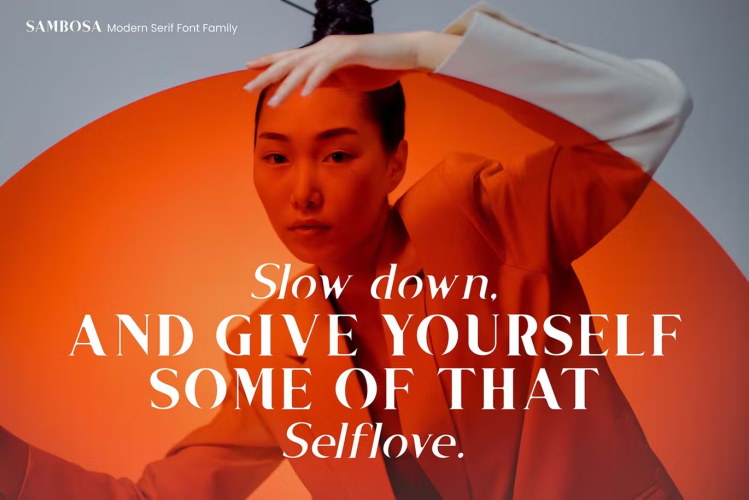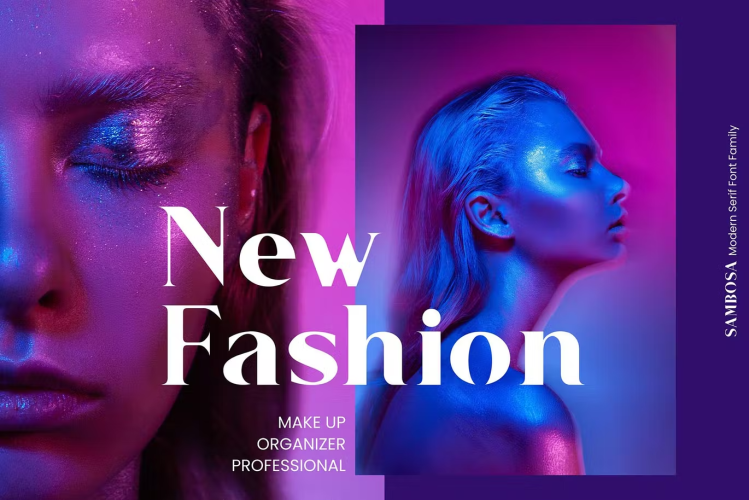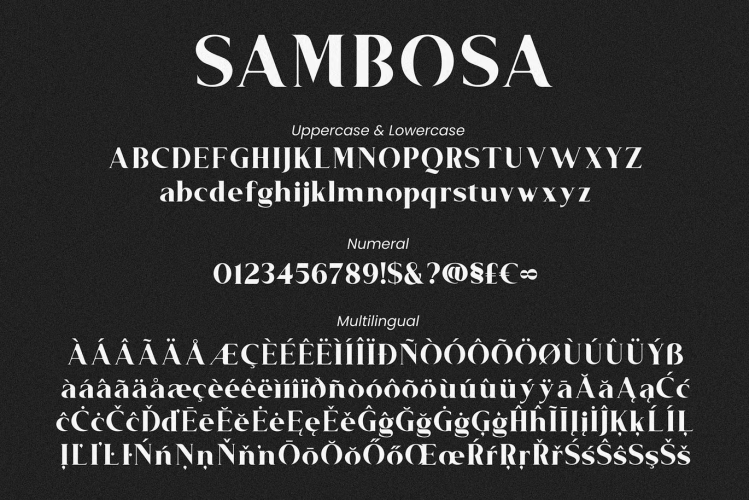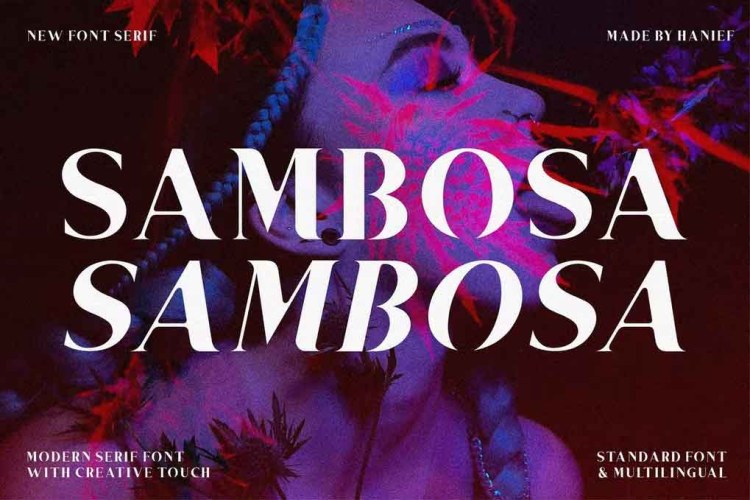
Sambosa Font
Sambosa – Modern Serif Font is a stylish font It has both modern look. Comes with Bold and Bold Italic, helps to create stunning logos, quotes, posts, blog posts. branding projects, magazine imagery, wedding invitations, and much more.
Where Sambosa Font works best
Sambosa Font gives long-form text a classic, trustworthy rhythm — ideal for magazine spreads, annual reports and book interiors.
Pair Sambosa Font with generous letter-spacing for wordmarks in fashion, hospitality, wine and jewellery branding.
Use Sambosa Font for slide titles in Keynote, PowerPoint or Google Slides to add authority without looking dated.
What is Sambosa Font good for?
Sambosa Font is a Serif Fonts typeface tagged Bold, Branding, Editorial, Modern. It works well for headlines, logos, posters, social media graphics and branding projects that need a distinctive serif fonts look.